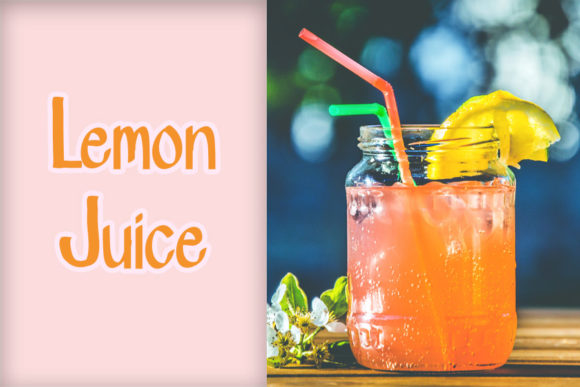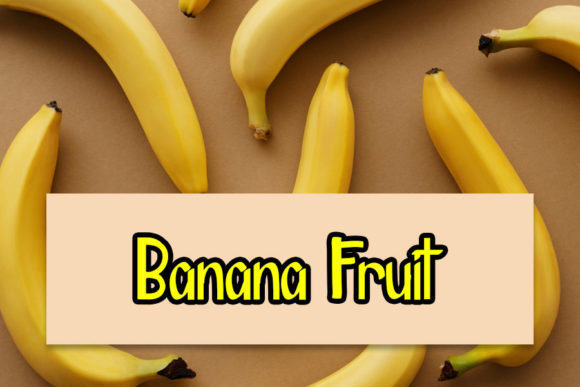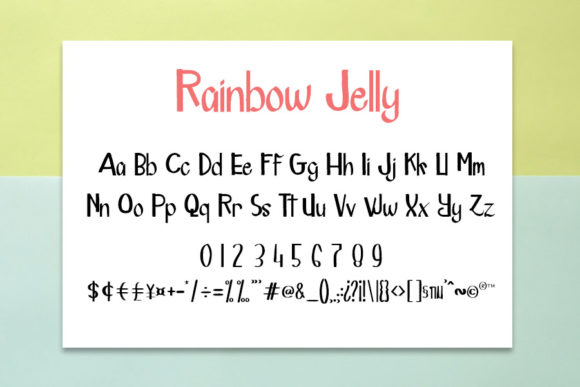
Introduction to Rainbow Jelly Font
Do you remember that moment when you stumbled upon the perfect design element for your creative project? Maybe it was a quirky icon, a vibrant color palette, or a beautiful font that brought everything together. For me, that moment came when I discovered the Rainbow Jelly Font. Its unique, handwritten style instantly caught my eye, and I knew I had to learn more about it.
As a designer, I understand the importance of having high-quality design resources at our fingertips. The Rainbow Jelly Font is one such resource that can elevate any design project with its natural and playful vibe. Whether you’re working on a branding project, creating social media graphics, or designing a digital product, this font is sure to add a touch of personality to your work. And the best part? It’s available for free download, complete with a transparent background, making it a versatile design element for any project.
What sets the Rainbow Jelly Font apart from other fonts is its ability to add a touch of whimsy and fun to any design. Its unique style and playful feel make it an ideal choice for designers looking to create engaging and creative content. With its high-quality design and transparent background, this font is a valuable resource for any designer looking to take their projects to the next level.
Key Features of Rainbow Jelly Font
- Unique, hand-drawn design perfect for creative projects and adding a playful touch to your work
- Includes a range of glyphs and characters, including uppercase and lowercase letters, numbers, and punctuation
- Perfect for use in digital and print designs, from logos and branding to posters and packaging
Honest Review: Rainbow Jelly Font
I recently had the opportunity to work with the Rainbow Jelly Font, and I must say it’s a fantastic addition to any creative project. The moment I downloaded it, I was impressed by its high quality and unique design.
- ✨ The font’s playful, colorful design makes it perfect for projects that need a touch of whimsy.
- ⚠️ The font may not be suitable for all types of projects, as its playful design can be overwhelming in certain contexts.
- ⚠️ The font’s color scheme can be difficult to customize, which may limit its versatility.
Overall, I’m impressed with the Rainbow Jelly Font. While it may have some limitations, its unique design and high quality make it a valuable resource for designers. Whether you’re working on a creative project or just need a fun font for a design, the Rainbow Jelly Font is definitely worth checking out.
The Rainbow Jelly Font is a versatile design resource that can be used in a variety of creative projects. Some common use cases include:
- Designing social media graphics and posts
- Creating presentations and slideshows
- Developing branding and marketing materials